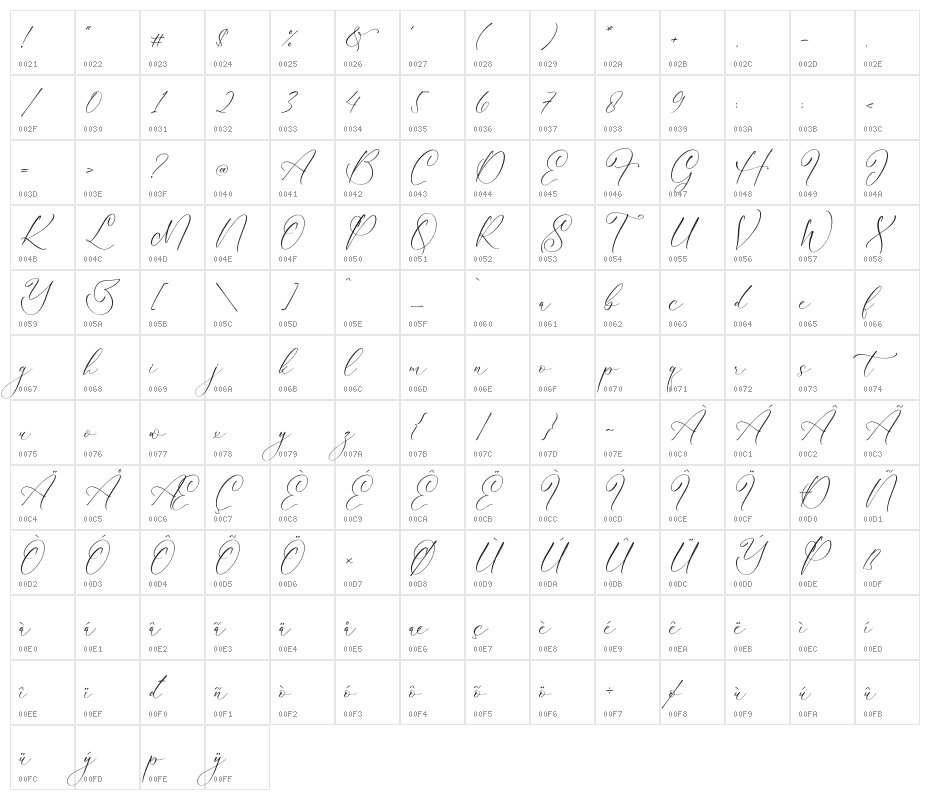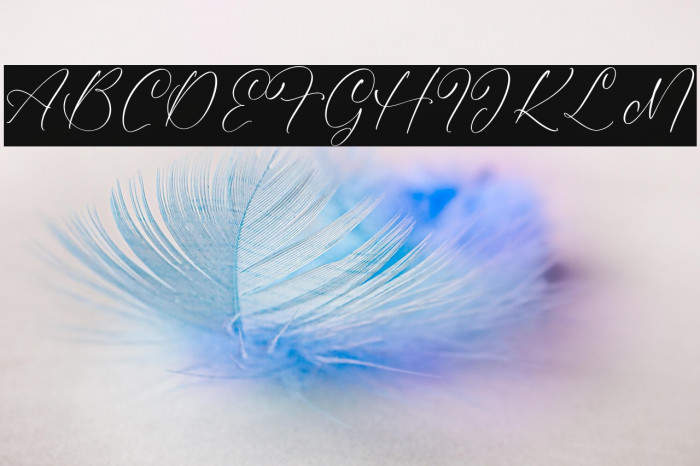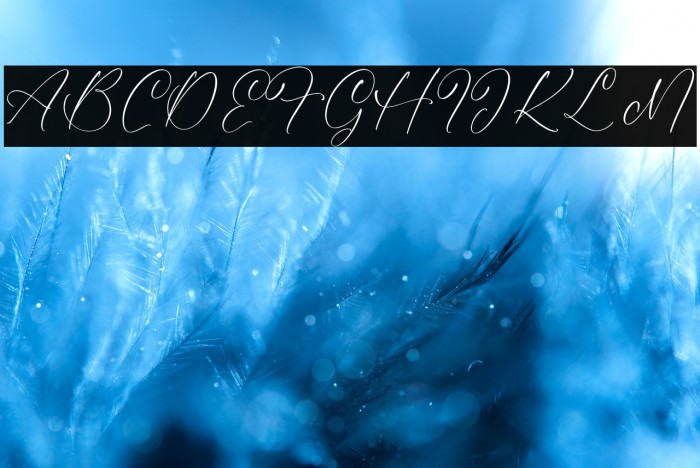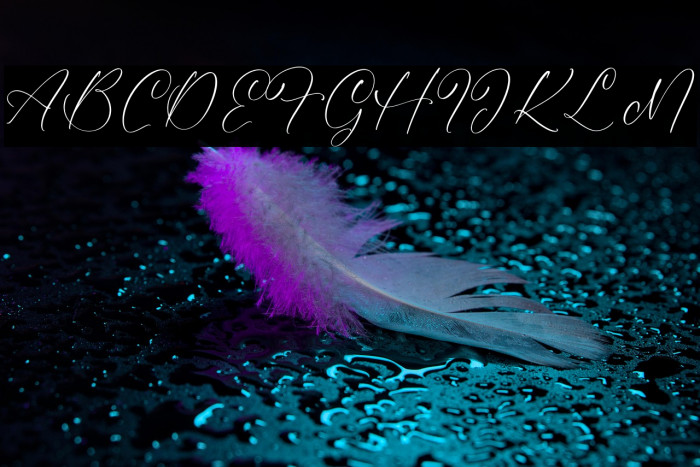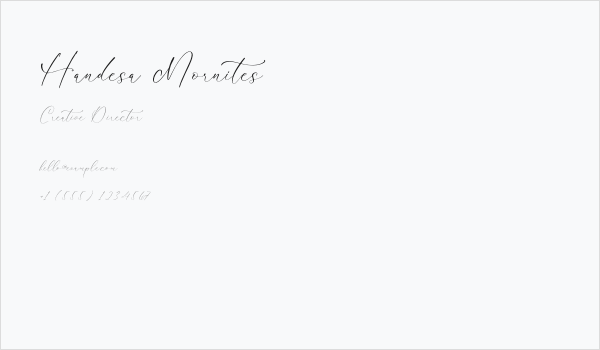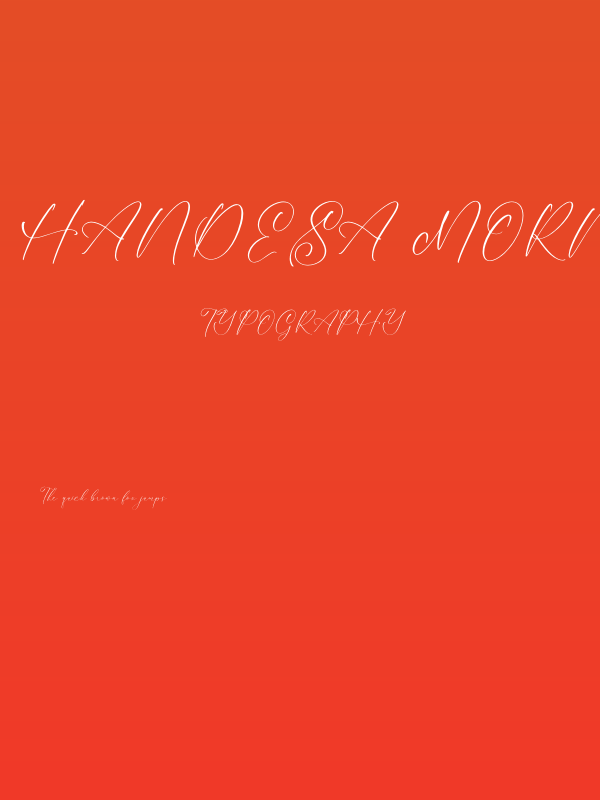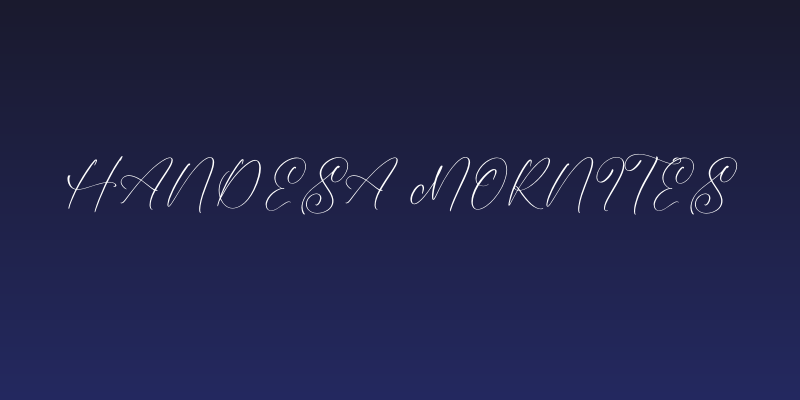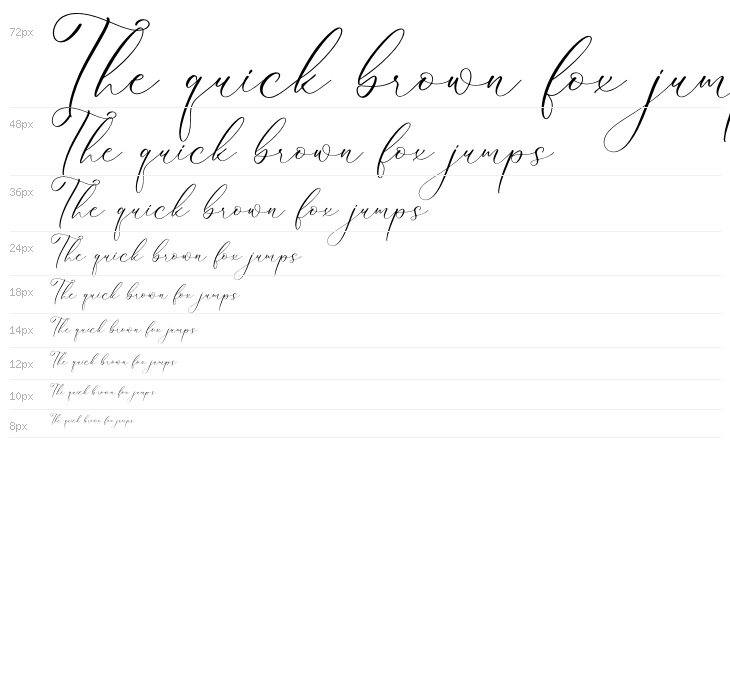
Handesa Mornites Font
Handesa Mornites Description
Elegant, flowing script with high contrast and delicate, thin strokes, featuring ornate swashes and a handwritten, calligraphic appearance. The characters are connected or closely spaced, with tall ascenders and deep descenders, giving a graceful and sophisticated look.
| Overall Style | Decorative, Elegant, Handwritten |
| Use Case | Logos, Invitations, Headlines, Decorative text |
| Proposed Projects | Wedding invitations, luxury branding, elegant event signage, personal stationery, high-end packaging. |